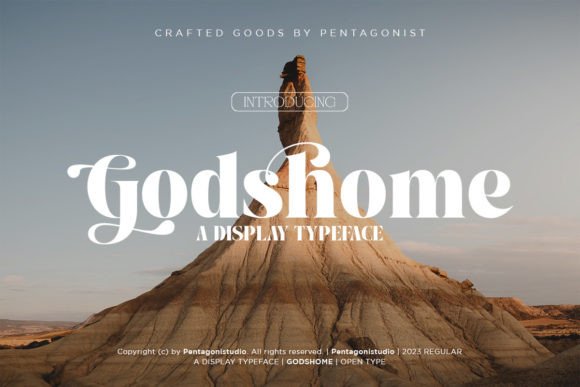
Step into the world of Godshome Font, a serif masterpiece crafted to elevate your designs to new heights. Experience the beauty of this exquisite font family, specially designed for soap label projects, and be captivated by its timeless charm. Created by the talented Pentagonistudio, Godshome Font is a symphony of elegance and sophistication, ready to add a touch of luxury to your creative endeavors.
With its sleek and refined lines, Godshome Font exudes a sense of exclusivity that sets your brand apart. Its high-end aesthetic is perfect for branding, editorial design, and fashion projects, where attention to detail and a polished look are paramount. Whether you're creating logos, packaging, or marketing materials, Godshome Font will infuse your projects with an air of sophistication that commands attention.
Unleash your creativity and let Godshome Font guide you towards design excellence. Its unique and refined character conveys a sense of luxury and exclusivity, making it a standout choice for those seeking a premium and polished design. Let your imagination soar as you explore the endless possibilities that await with this versatile font family.
Godshome Font's PUA encoding opens up a world of glyphs and swashes that you can effortlessly access, allowing you to add intricate details and flourishes to your designs. Experiment with different combinations and create truly captivating compositions that leave a lasting impression on your audience.
So, embark on a design journey like no other with Godshome Font. Discover the beauty of this remarkable font family and elevate your projects to new heights of sophistication. Embrace the elegance and exclusivity that Godshome Font brings and let your creativity shine.